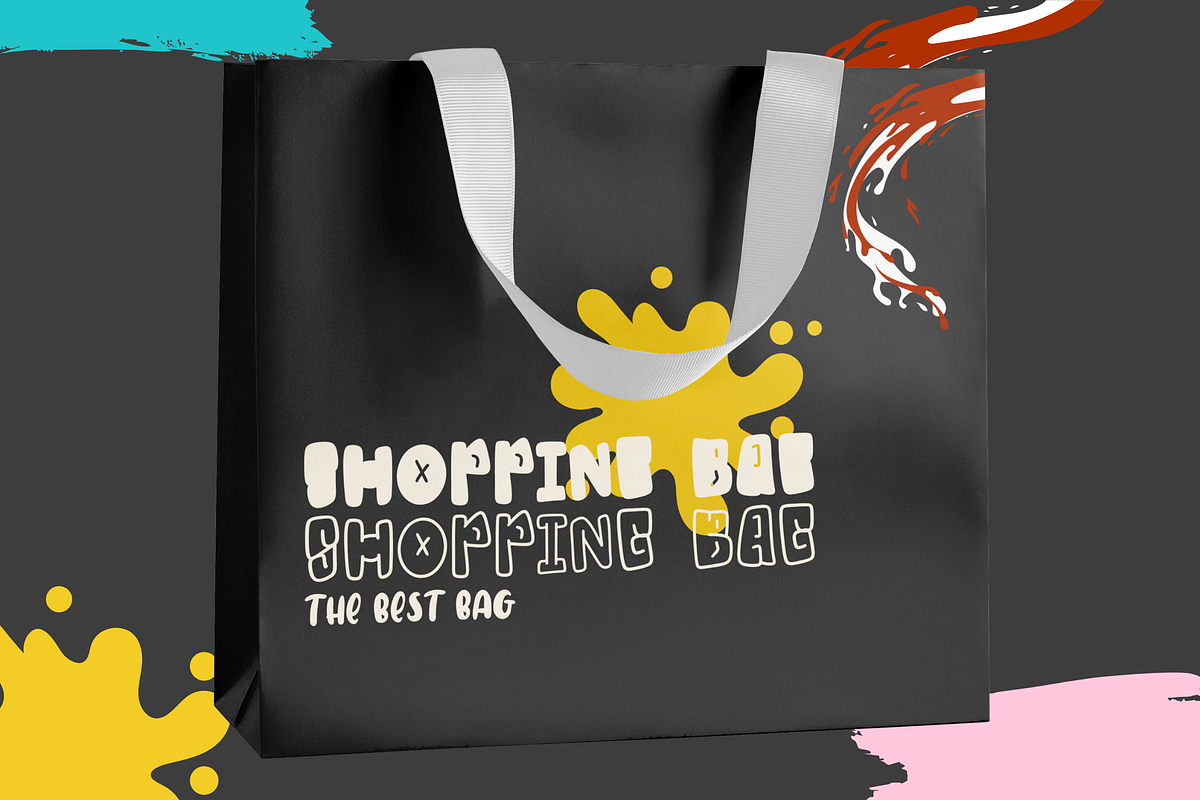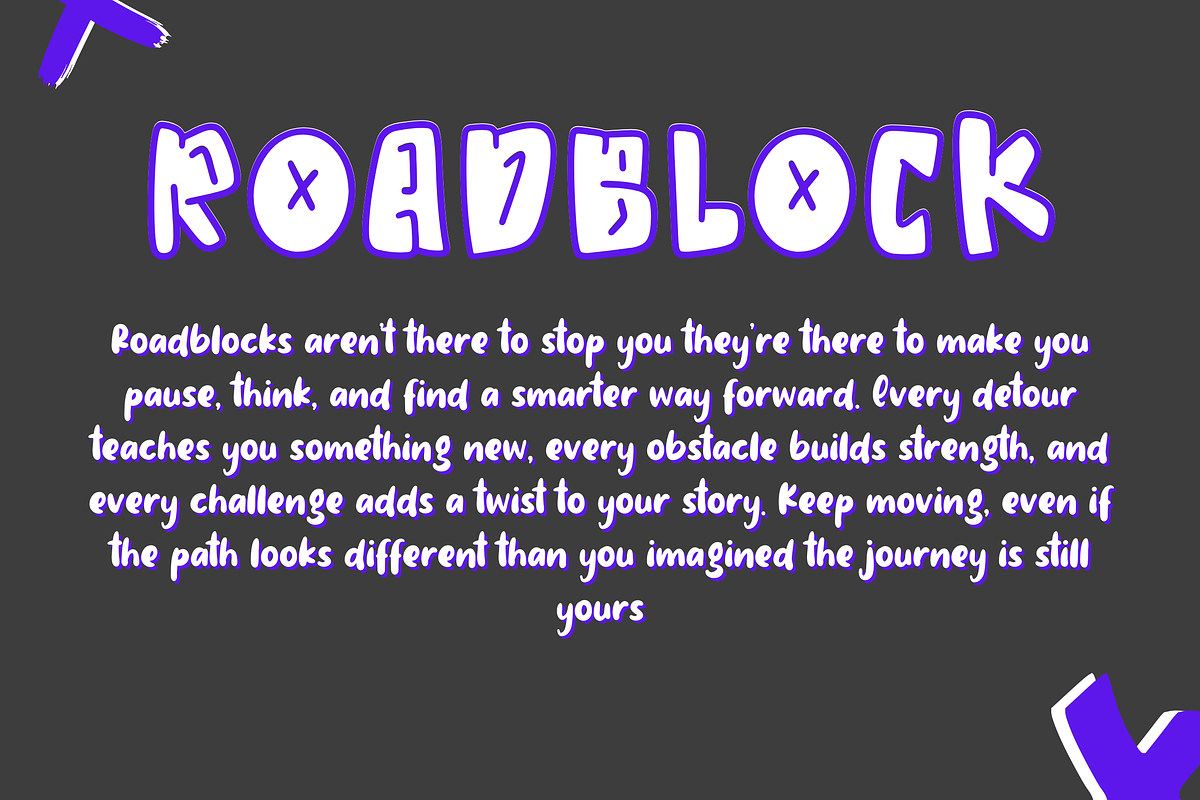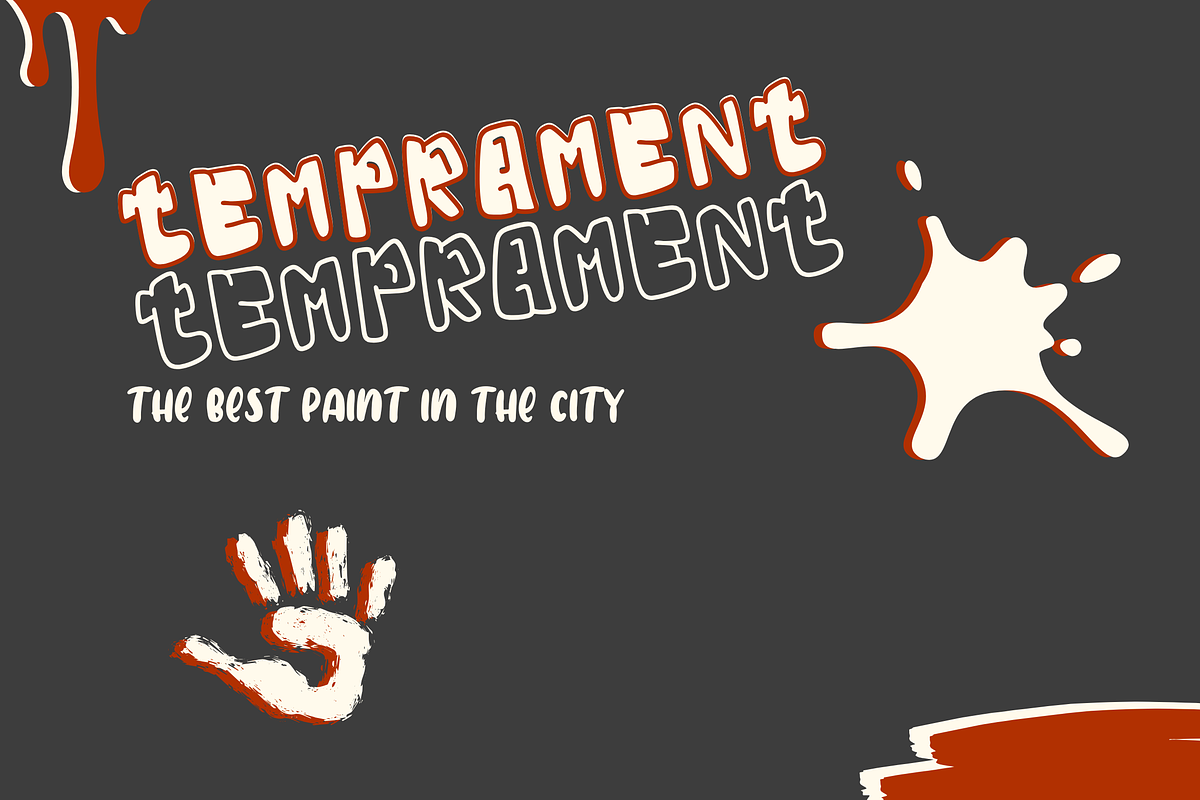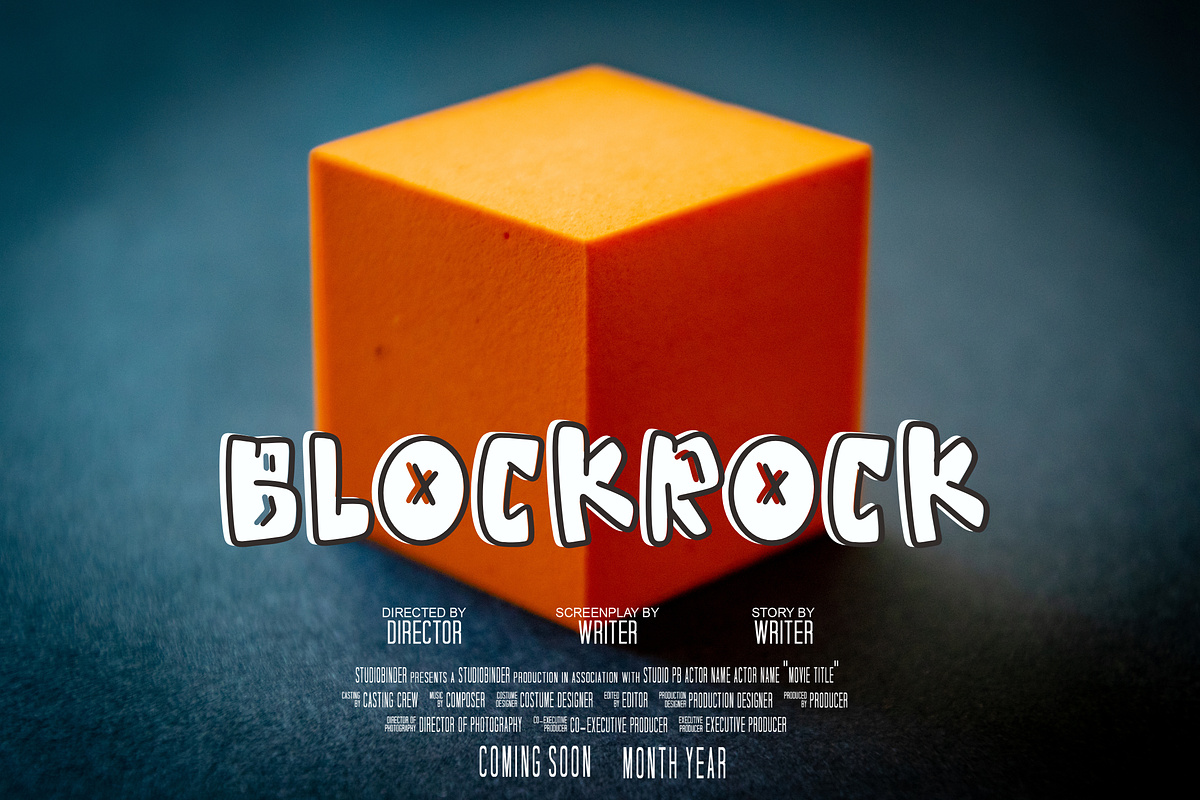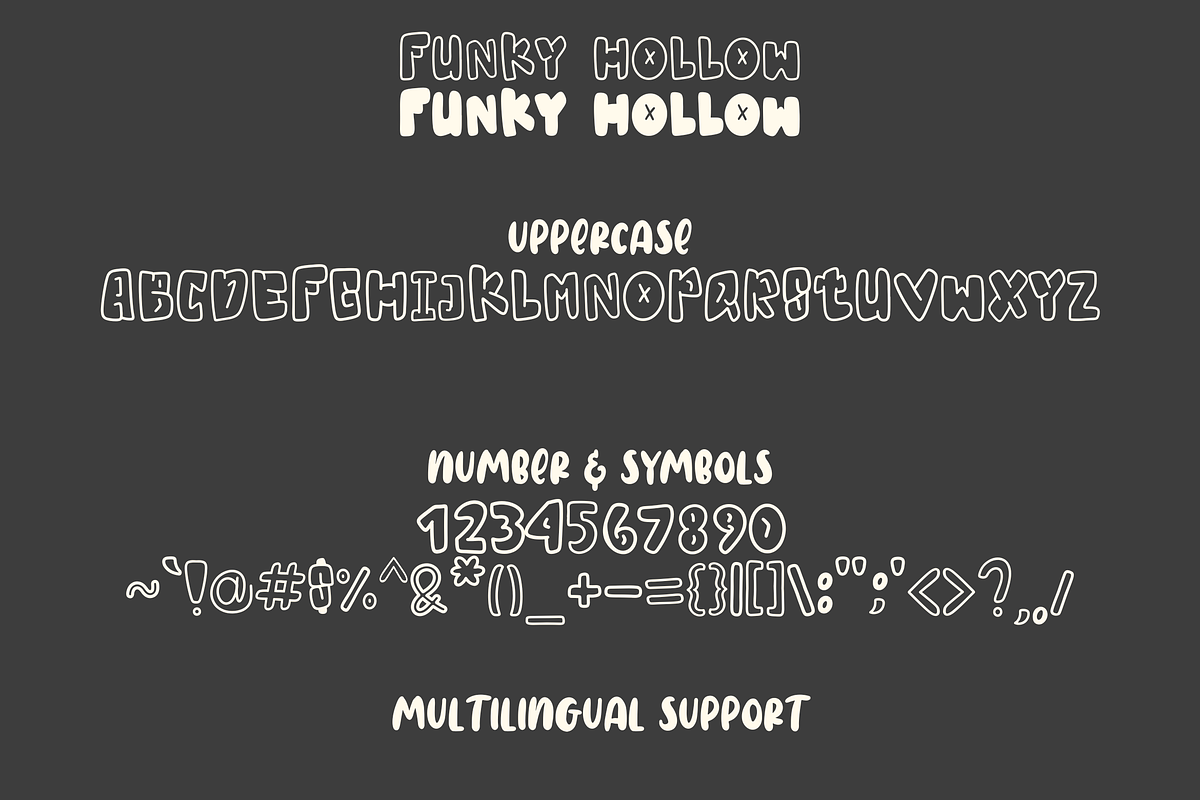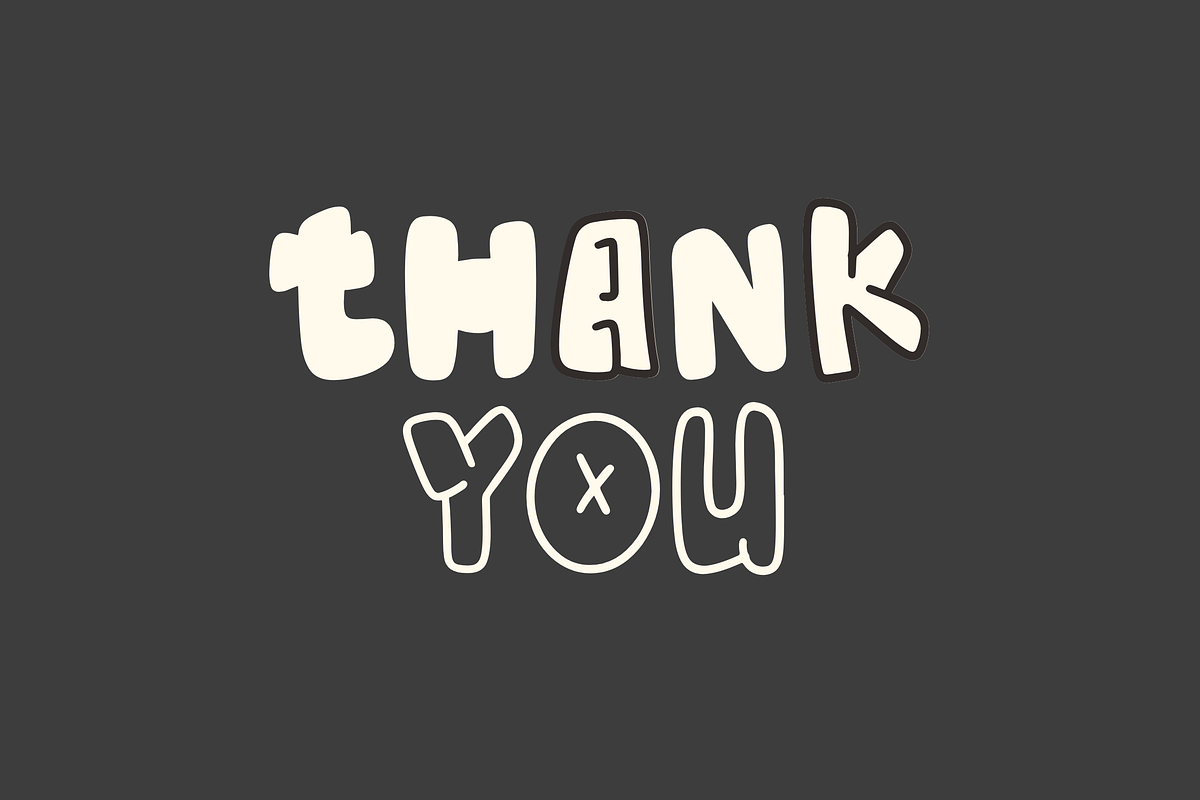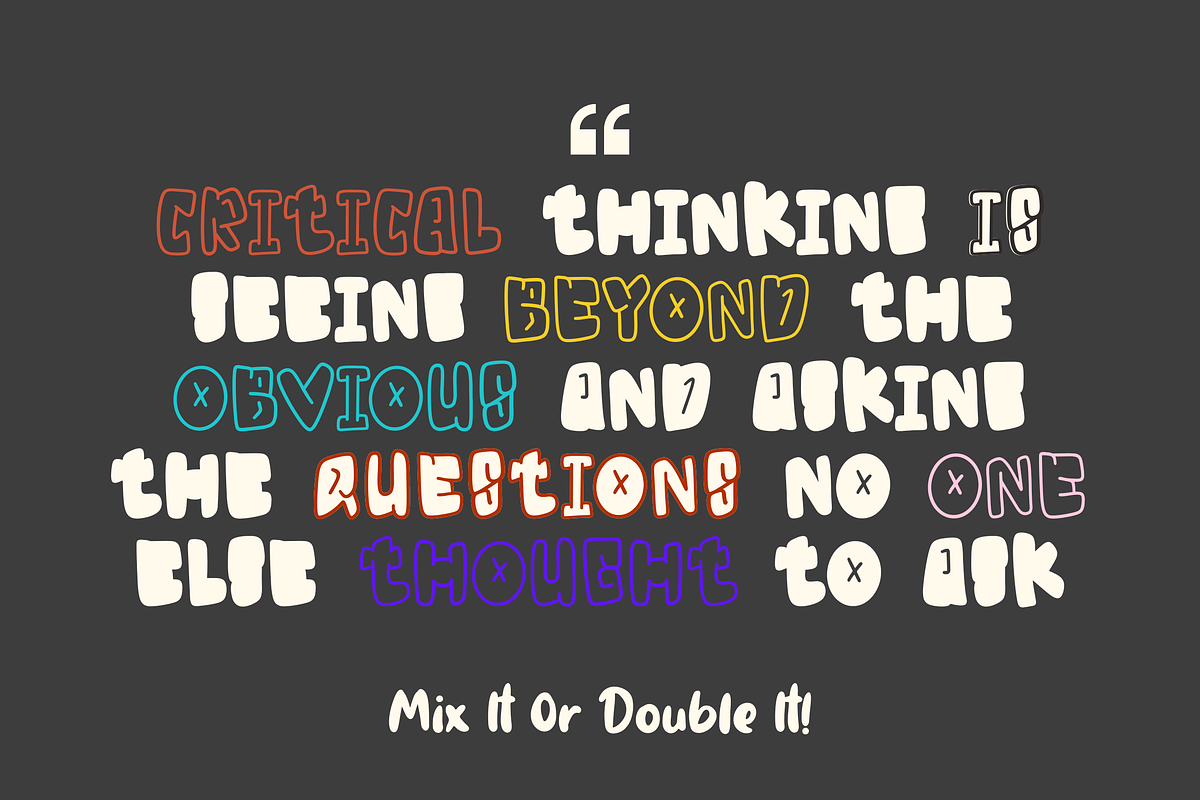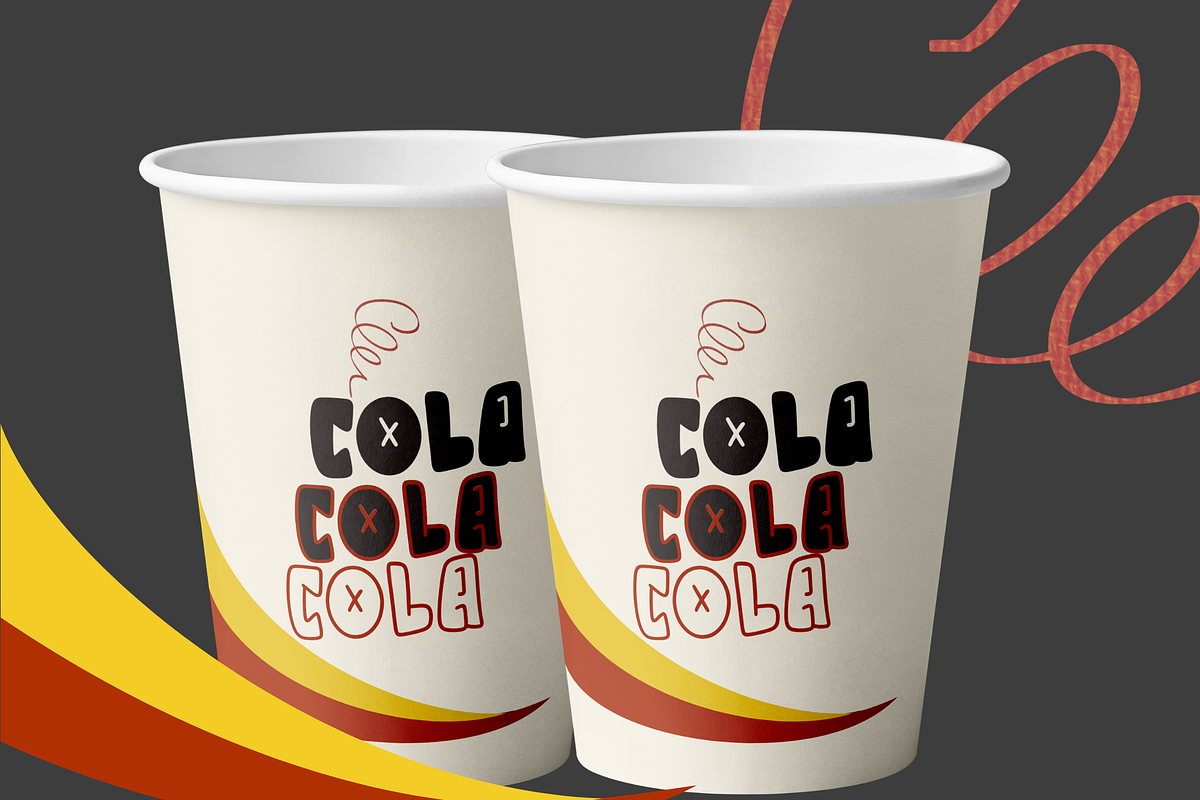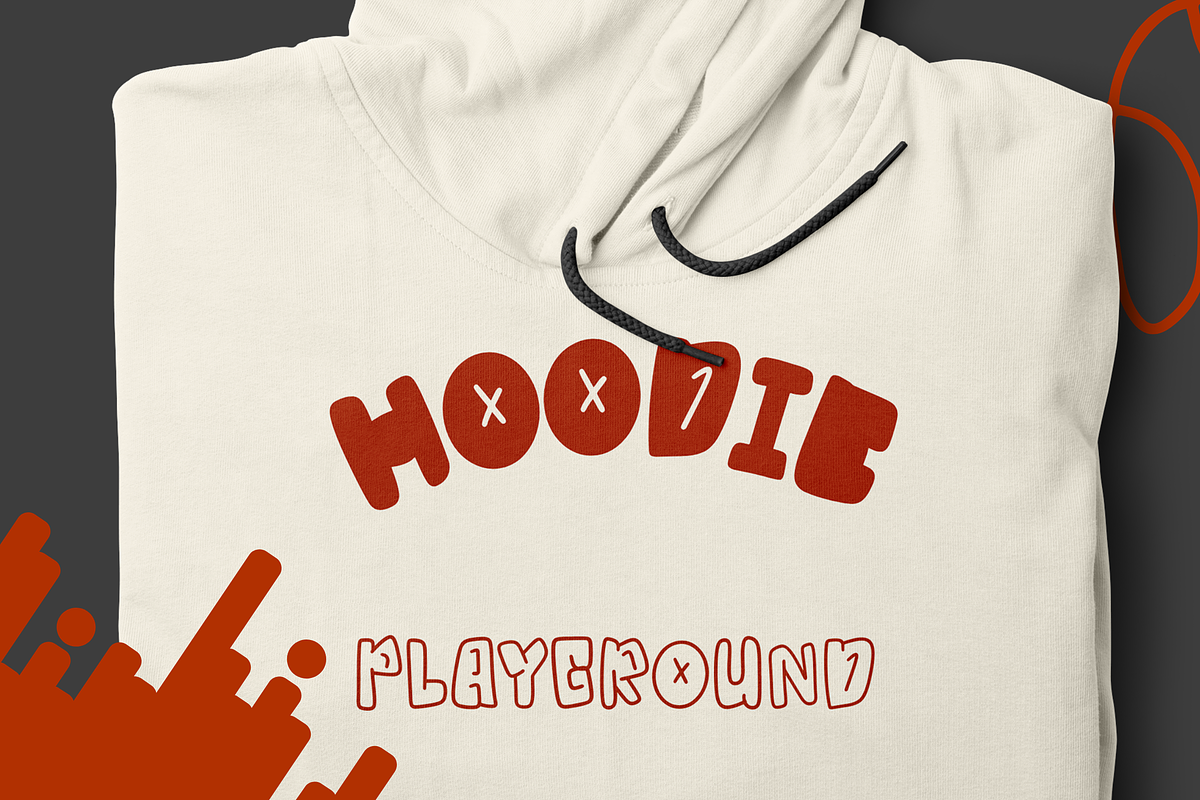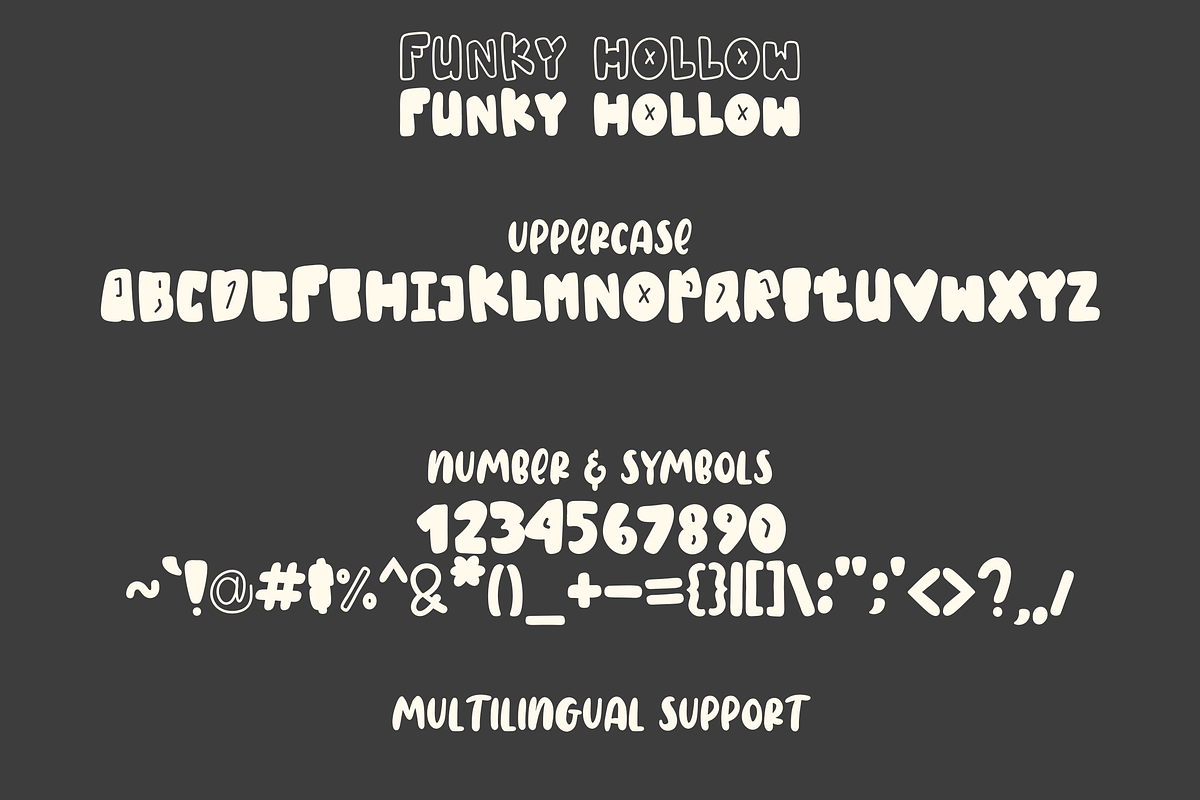
Funky Hollow
Funky Hollow – A Double & Mix Display Font
Funky Hollow is a quirky and eye-catching display font that combines double-line outlines with playful mix-and-match styling. Its bold and groovy look makes it perfect for retro-inspired designs, streetwear branding, posters, and creative packaging. Whether you use it as a solid headline or layer the mixed style for vibrant effects, Funky Hollow brings funky personality and visual energy to your projects.
Double & Mix Style: Fun dual-line letters with a unique hollow effect and mix design options.
Perfect for Bold Projects: Great for logos, posters, stickers, T-shirts, and album covers.
Playful Retro Vibe: Inspired by funky lettering, street art, and nostalgic design trends.
Complete Character Set: A–Z uppercase, lowercase, numerals, punctuation, and multilingual support.